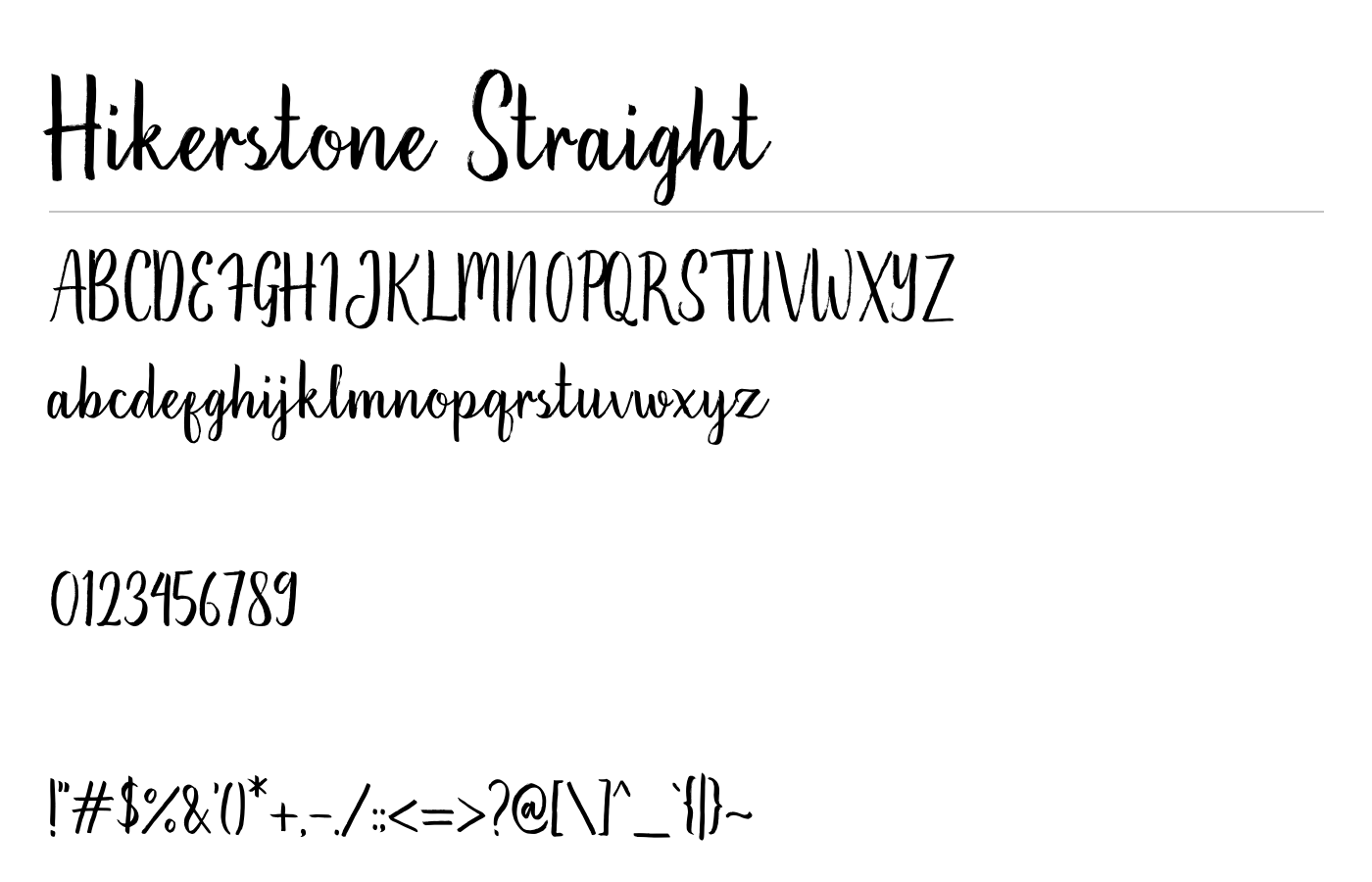
Hikerstone is a playful and elegant handwritten script font with a tall, narrow structure and smooth, brush-like strokes that give it a natural, casual charm. Its balanced mix of uppercase and lowercase letters, combined with distinctive letterforms and a moderate x-height, makes it a great choice for creative branding, invitations, and lifestyle projects that want to convey warmth and personality. This font shines in designs where a personal, friendly touch is needed, such as logos, social media graphics, and packaging.
Hikerstone Font
About Hikerstone Font